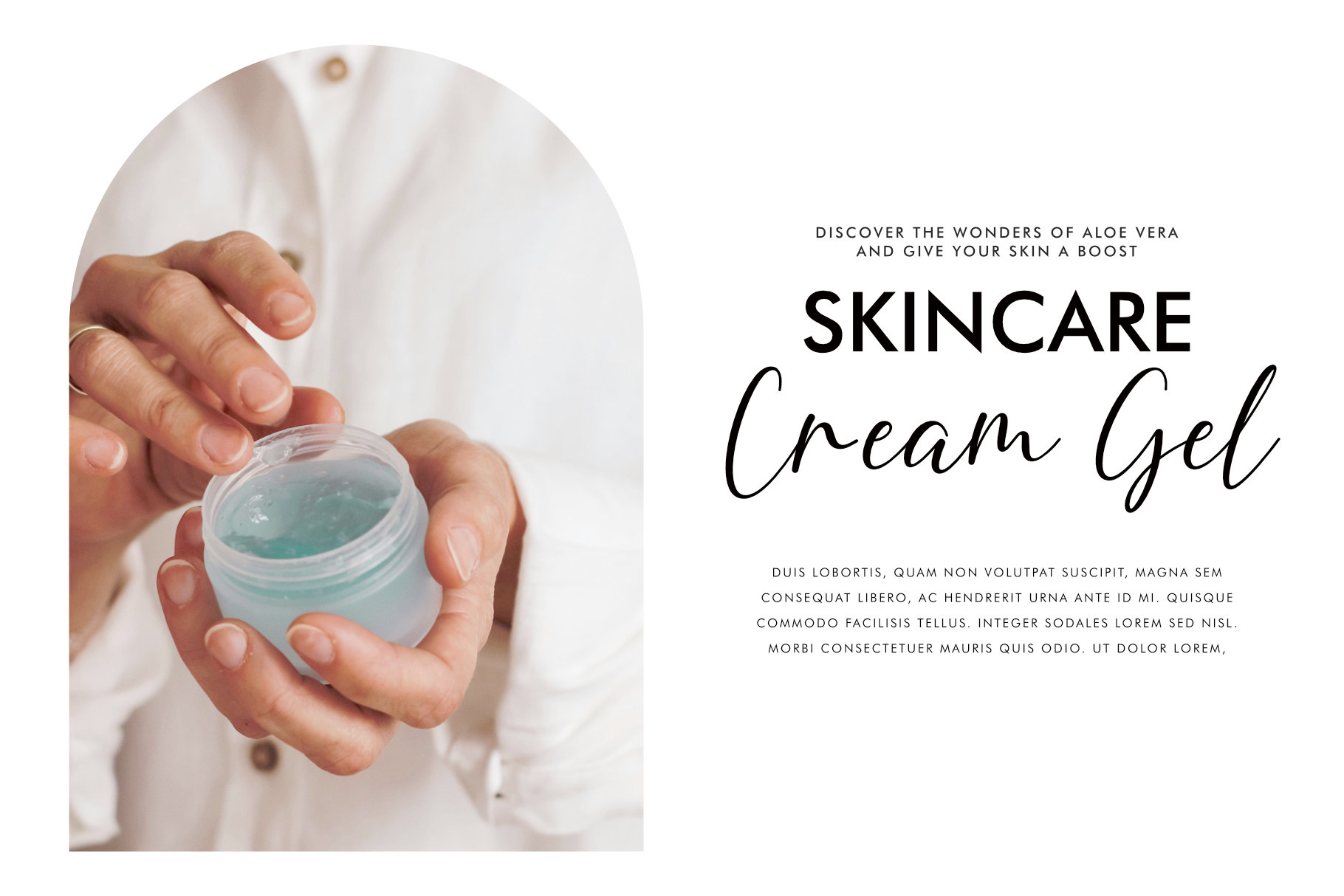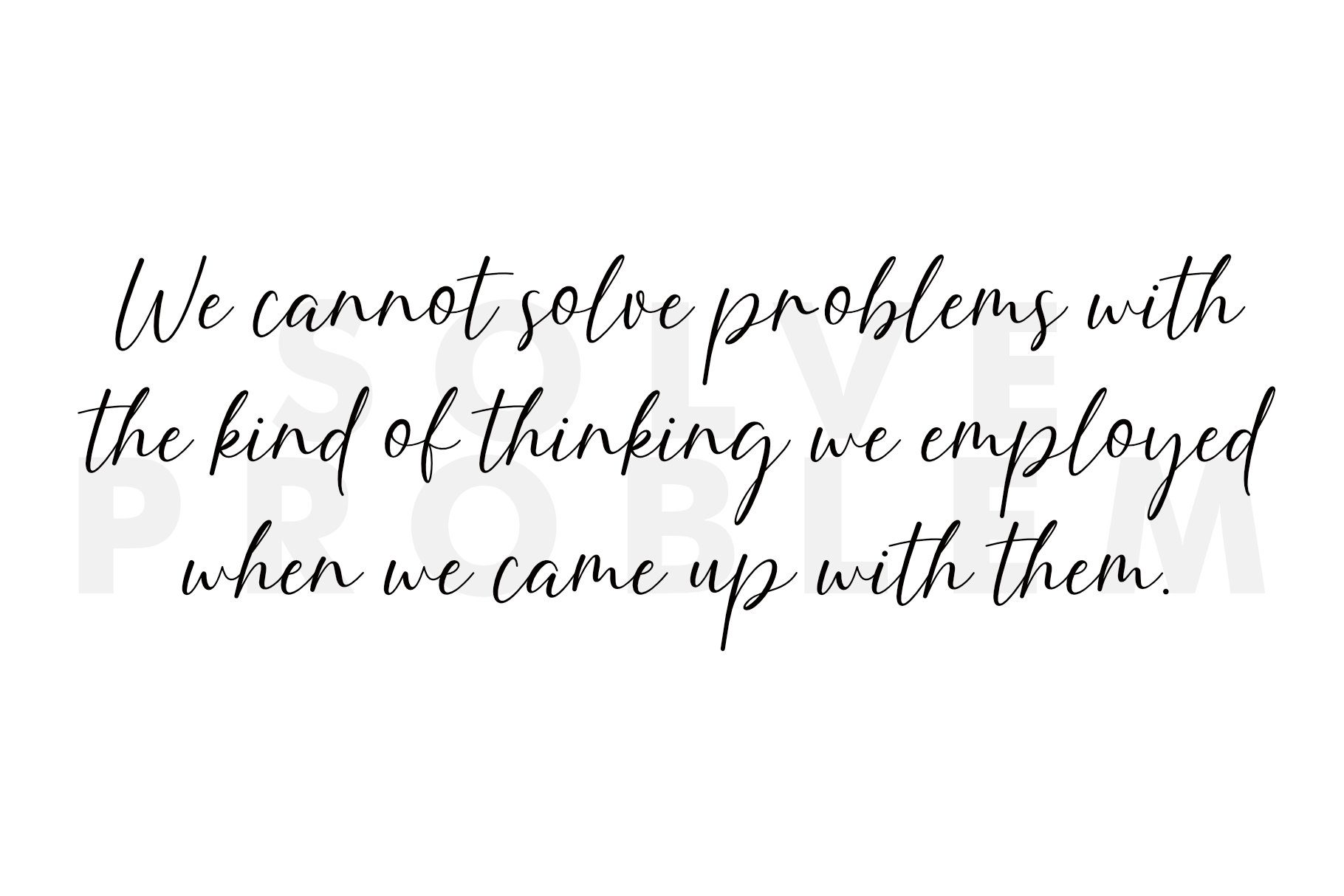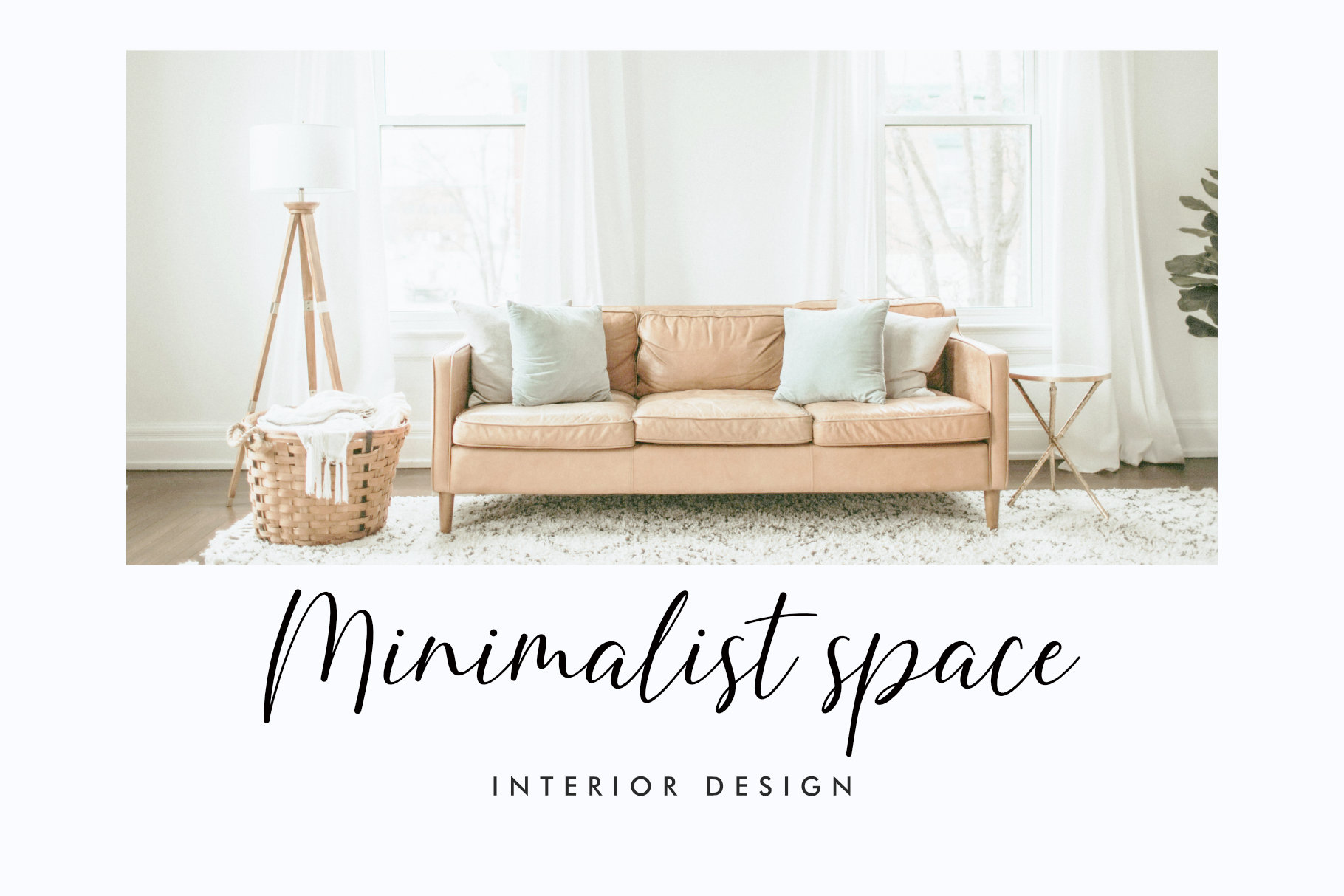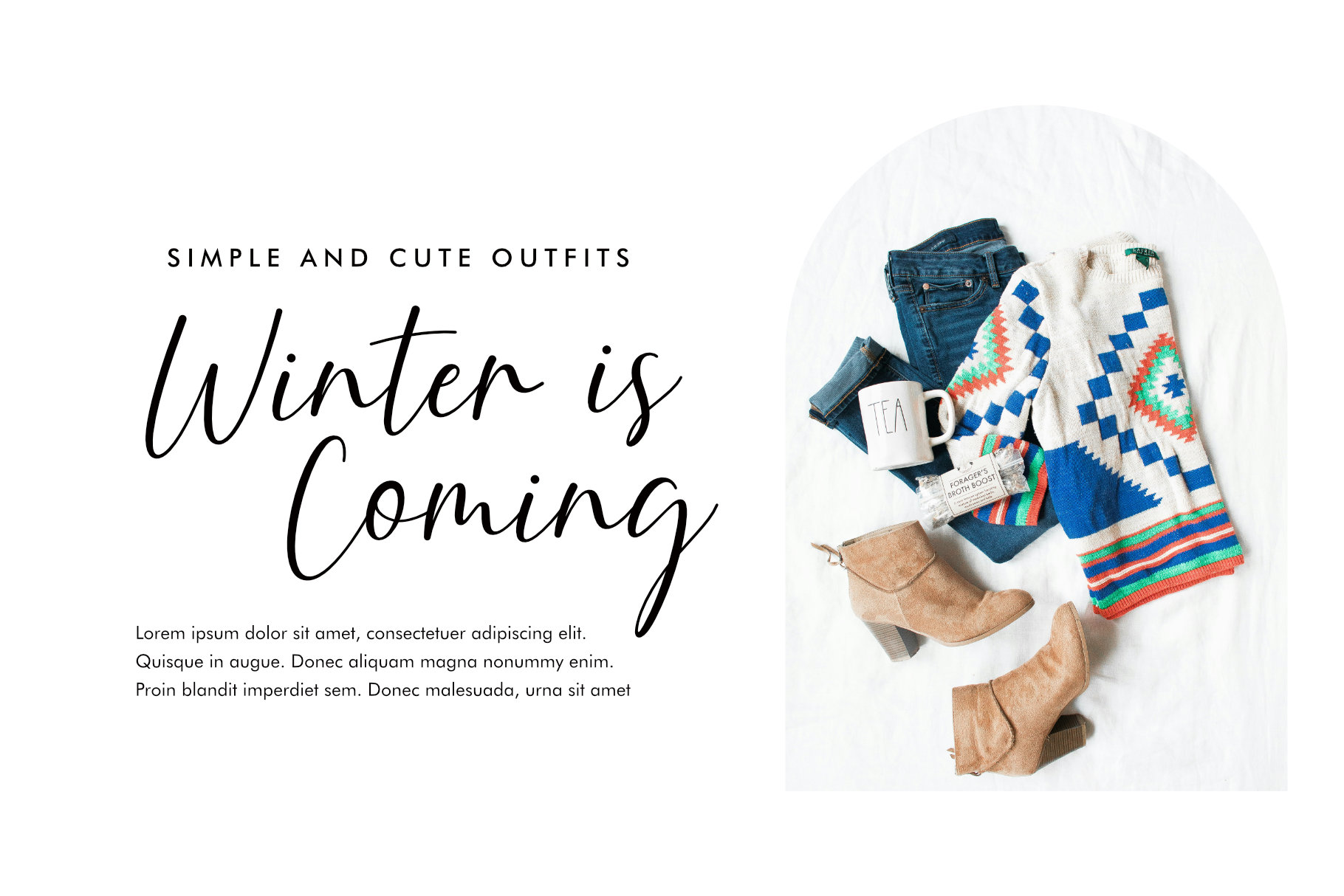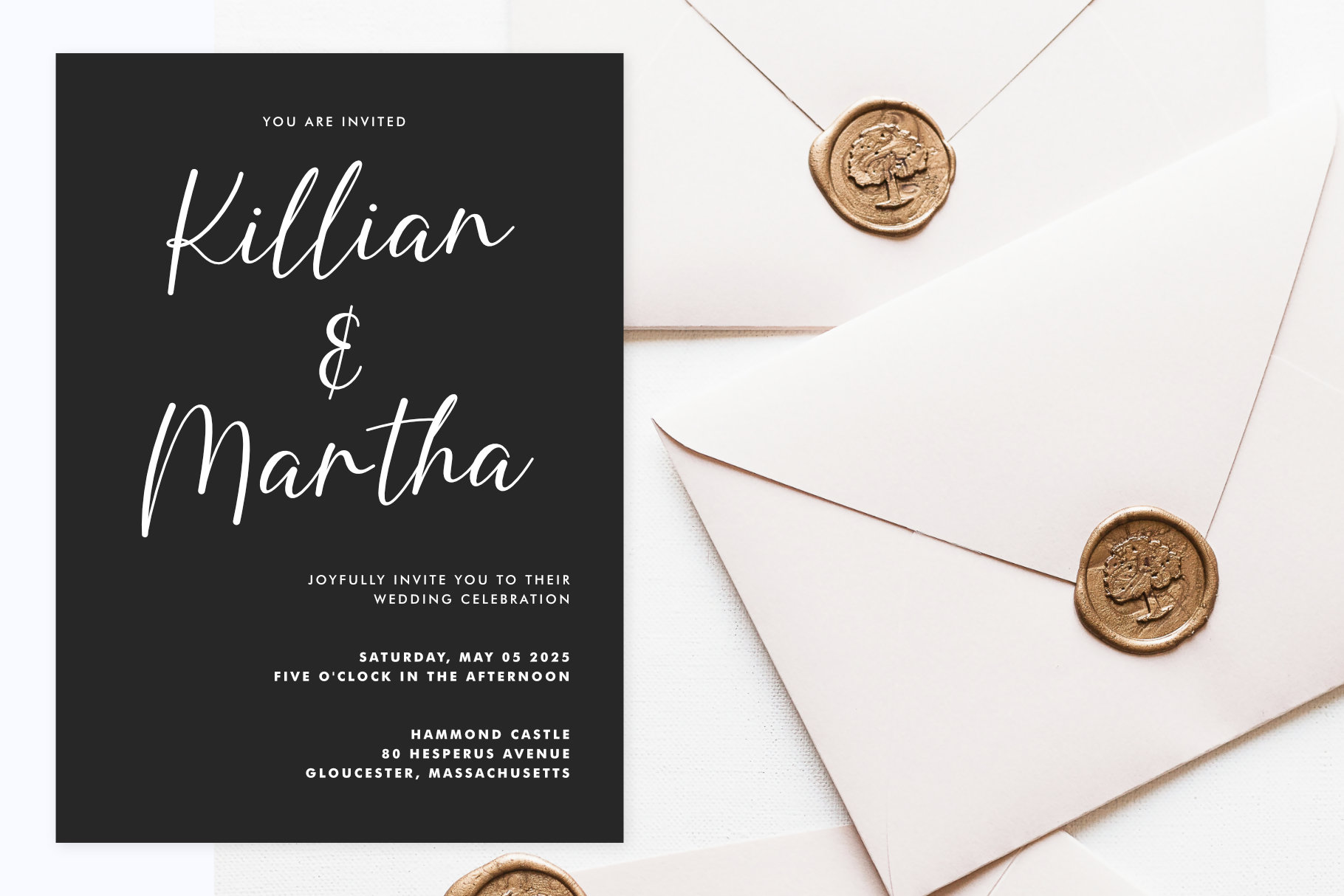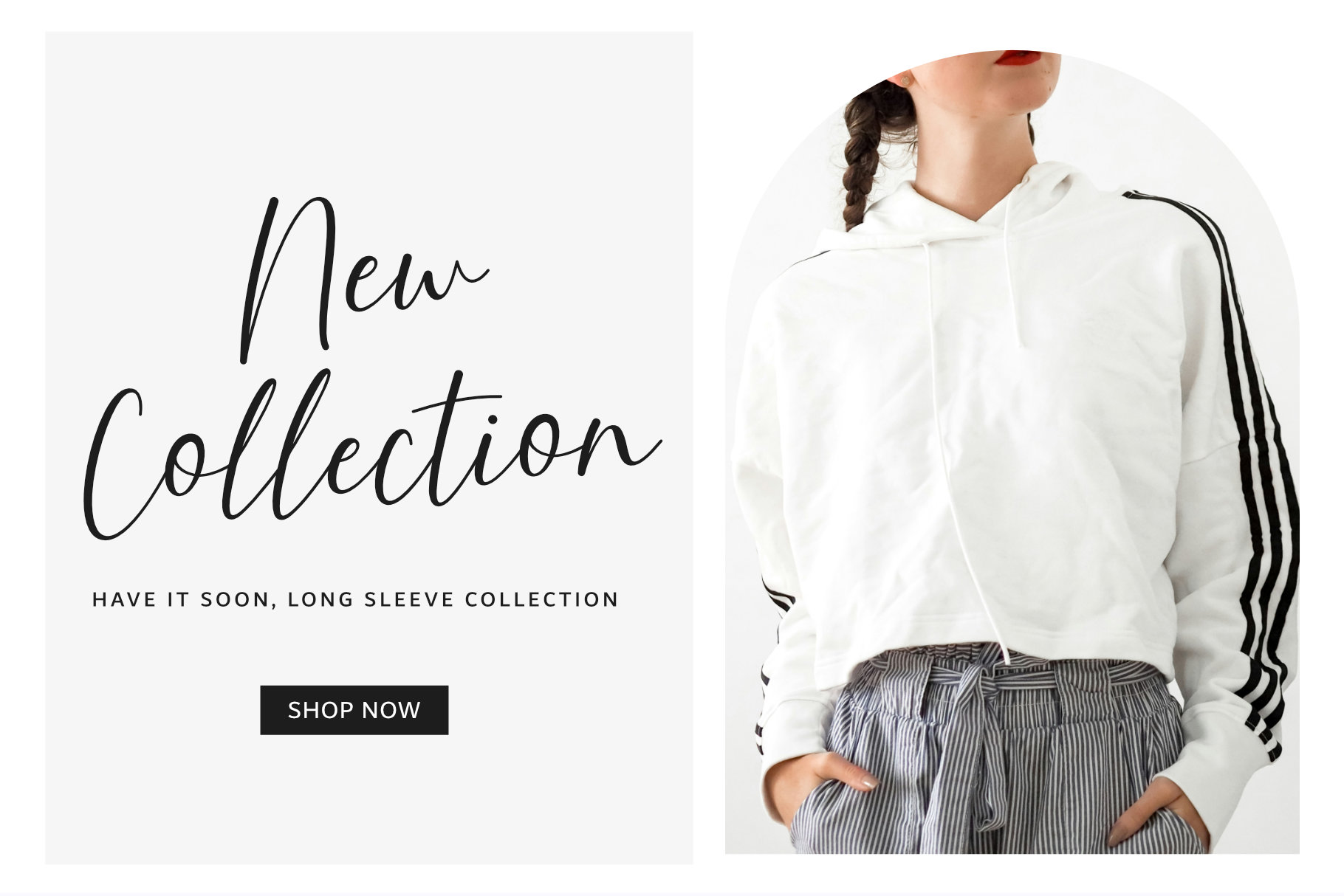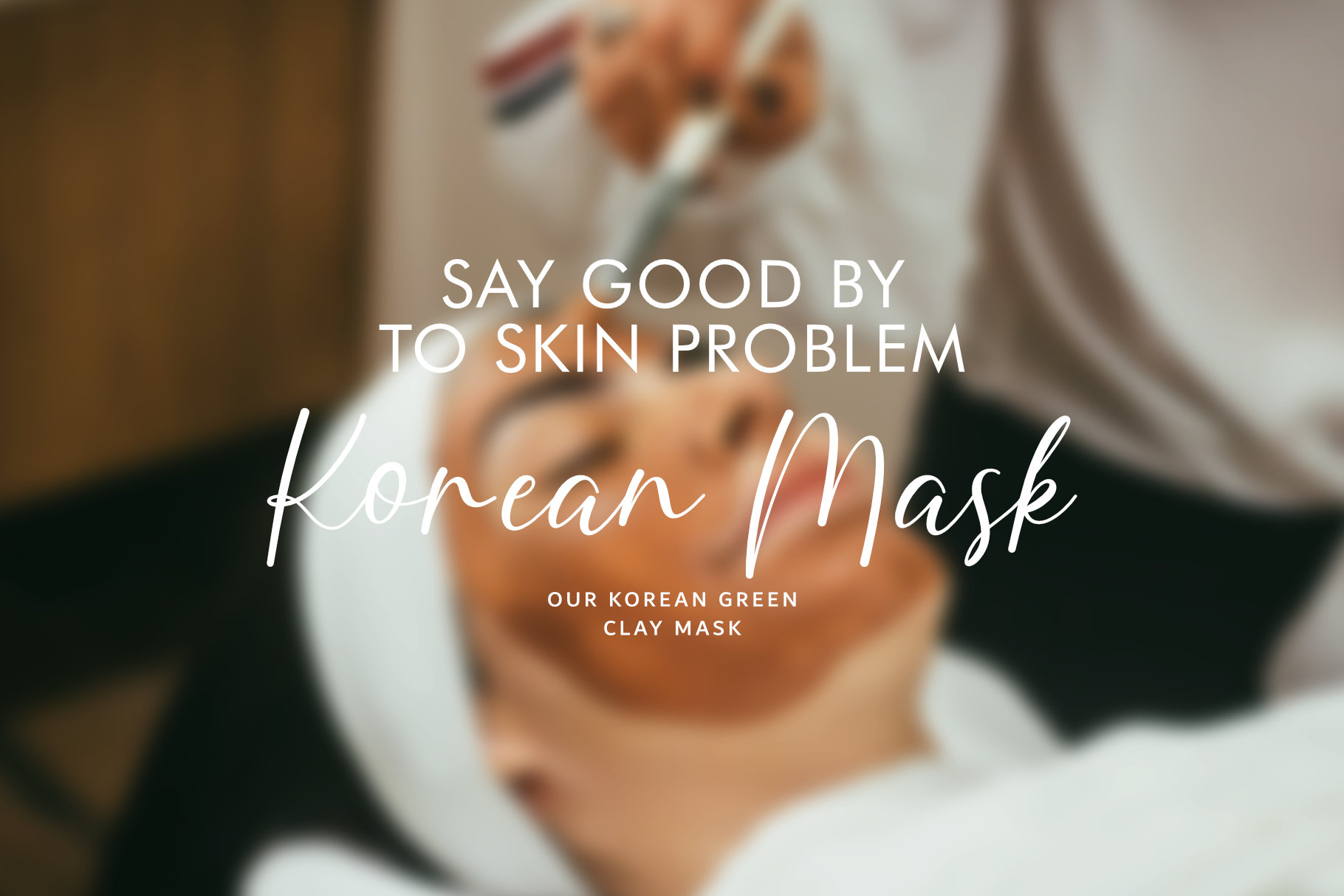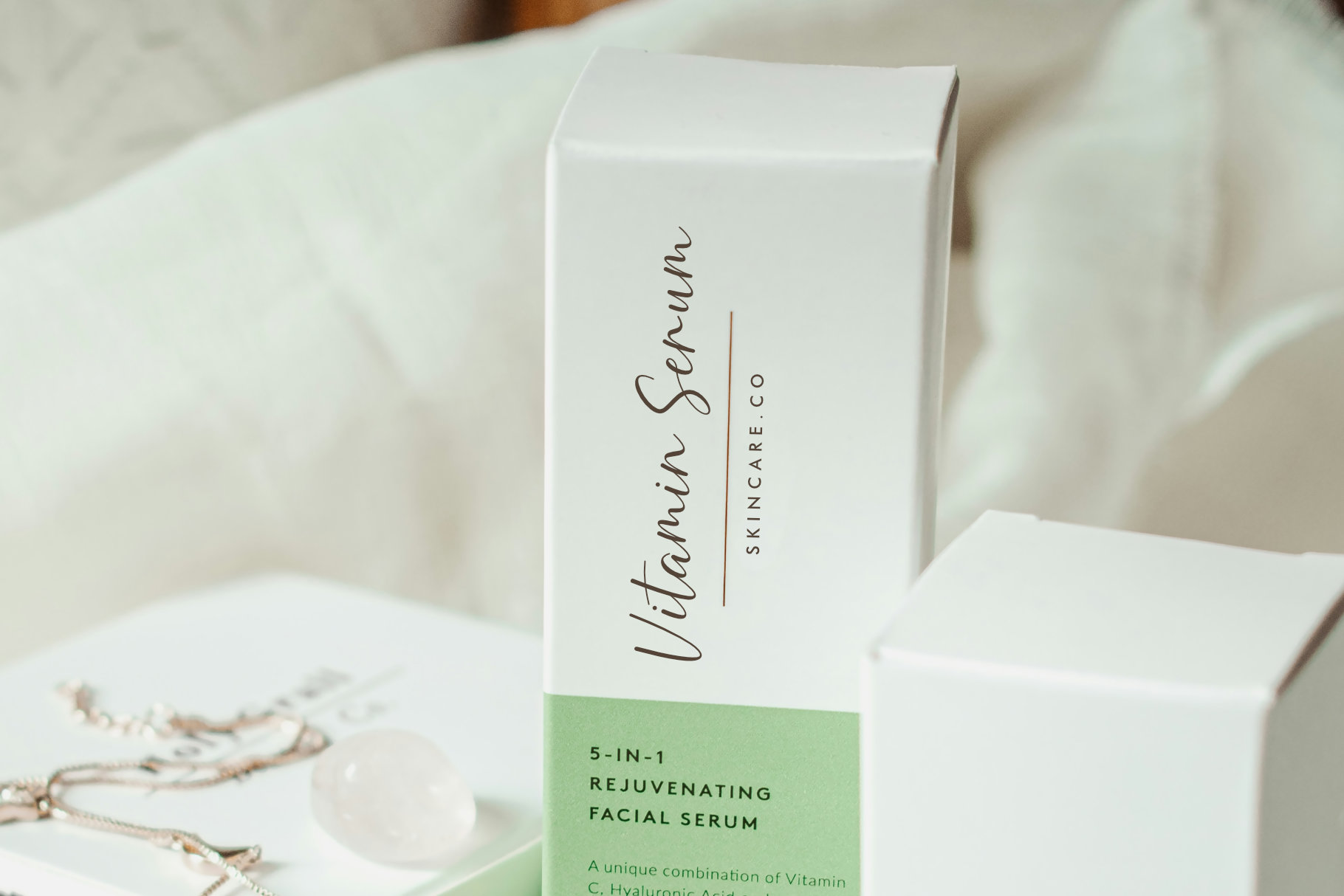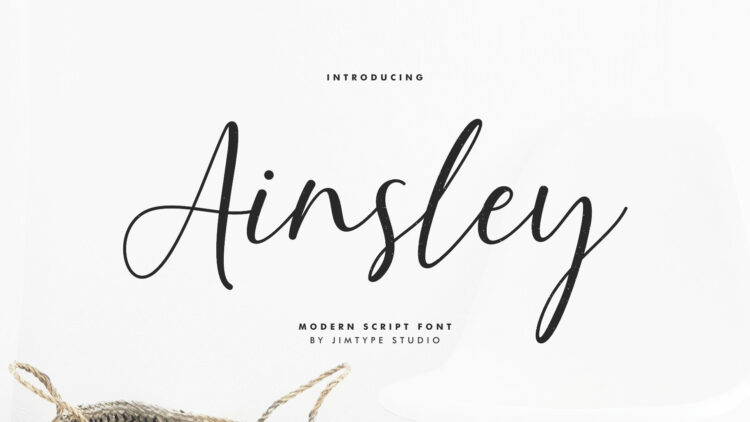
Ainsley Script Font
Introducing Ainsley, a timeless modern script font perfect for elegant branding, invitations, watermarks, photography, and more. Designed with sophistication in mind, Ainsley elevates any project with its versatile, stylish appeal. Ideal for those who seek a touch of elegance in their designs.